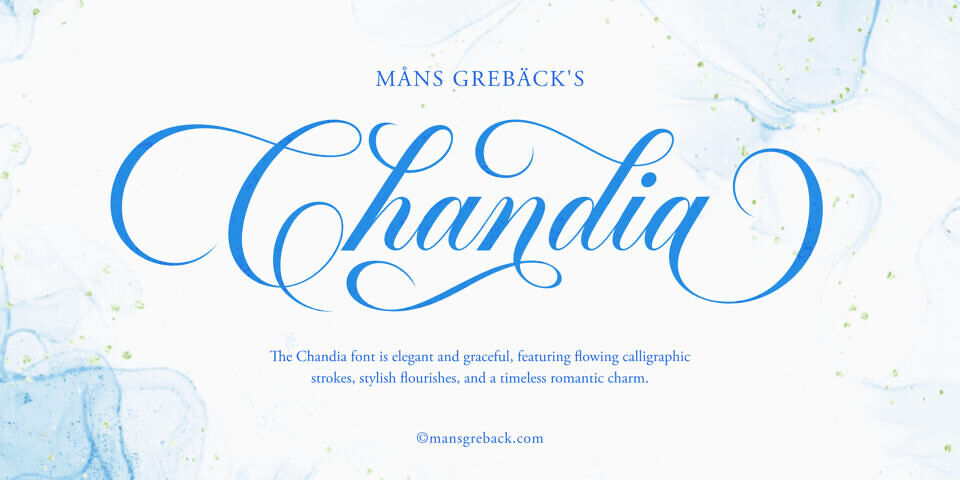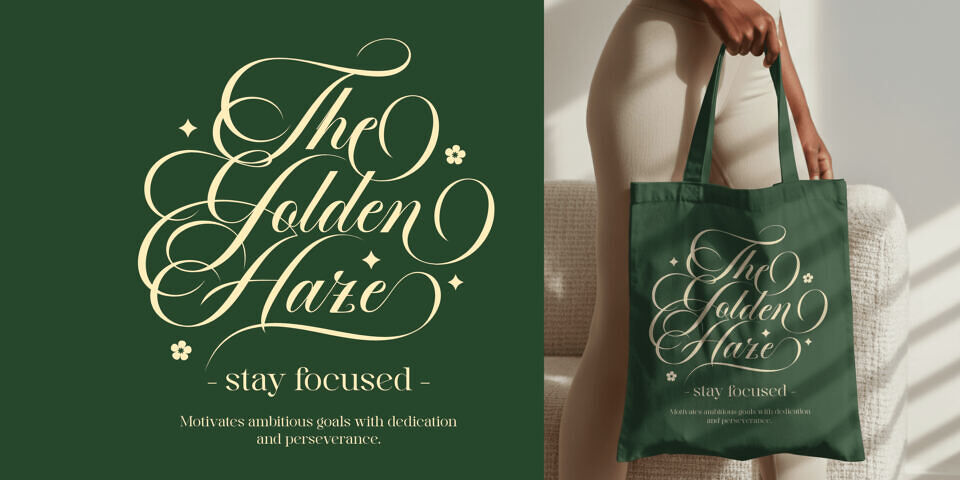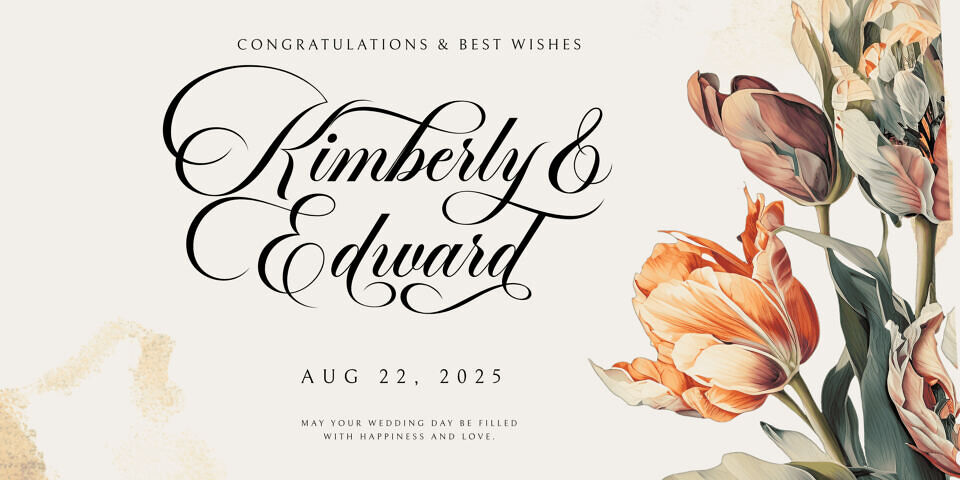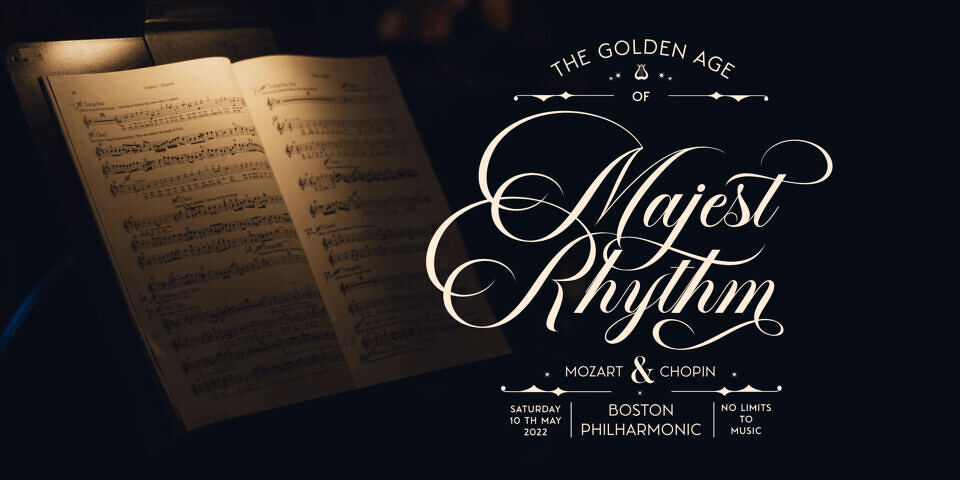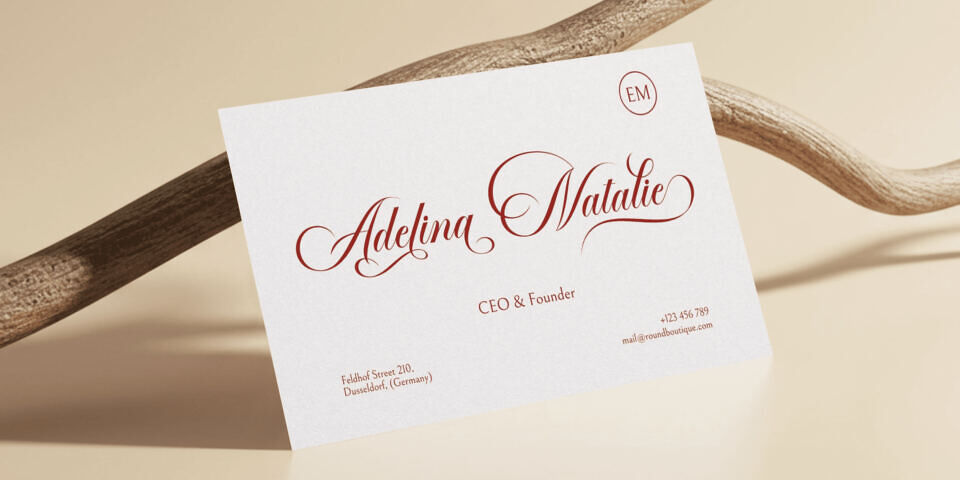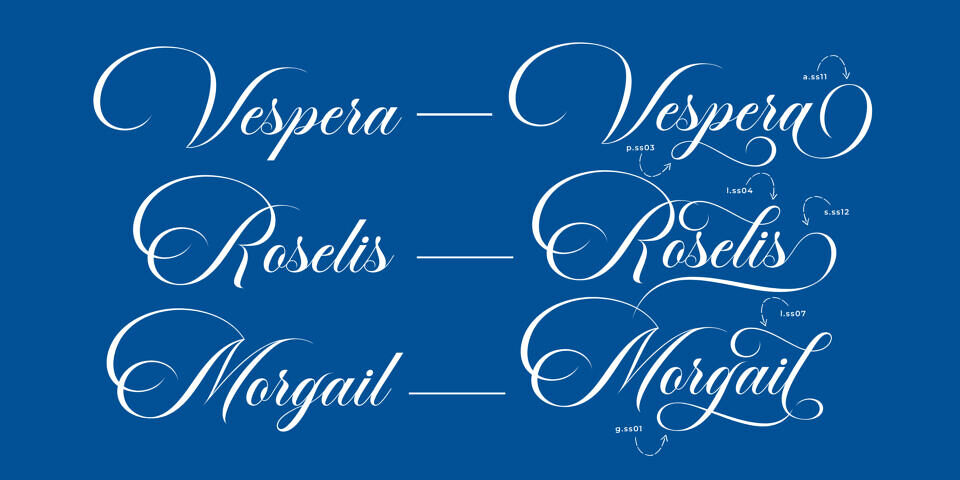
Chandia is a dramatic cursive typeface, drawn with high precision and an elegant hand. Flourishing with romantic swashes and long tails, the lettering flows with a confident grace that brings to mind engraved invitations, ballroom dances, and handwritten vows.
The uppercase characters are especially expressive, designed with ornamental loops that accentuate the rhythm of the script without losing clarity.
Use underscore _ after any word to make a swash. Example: Beautiful_ Or simply use one of the 100 decorative alternates to give a flair to your type work.
With both bold presence and gentle curves, Chandia finds balance between traditional calligraphy and modern sophistication.